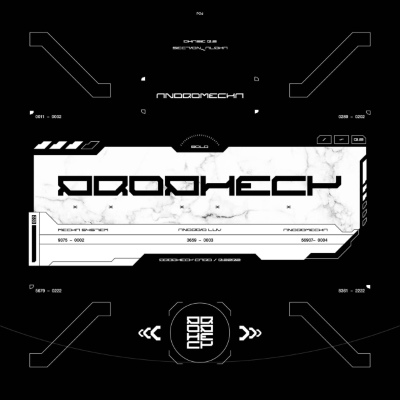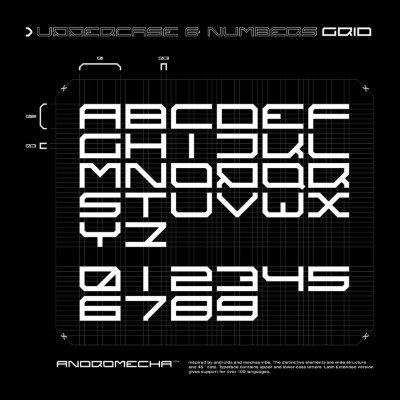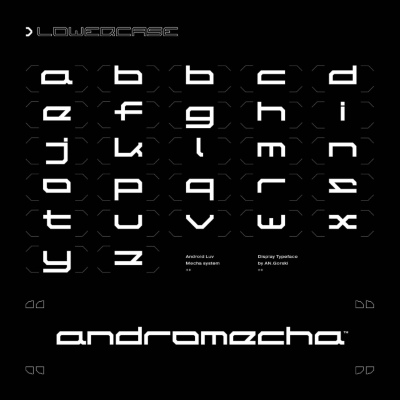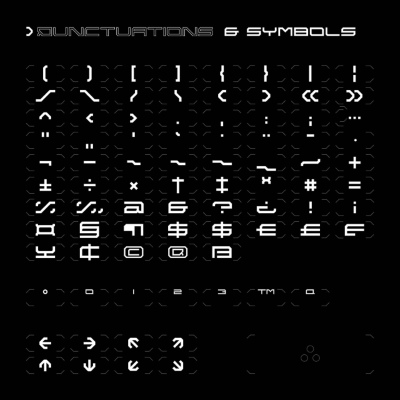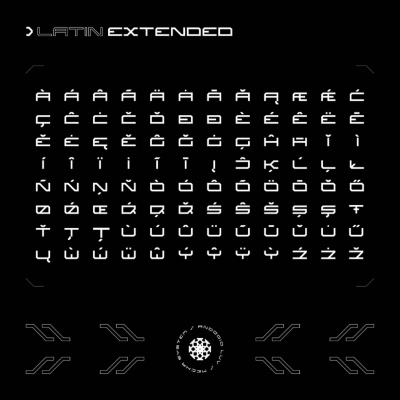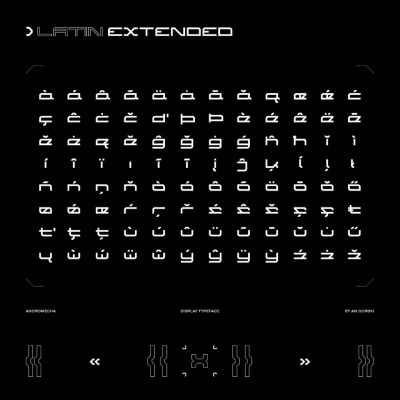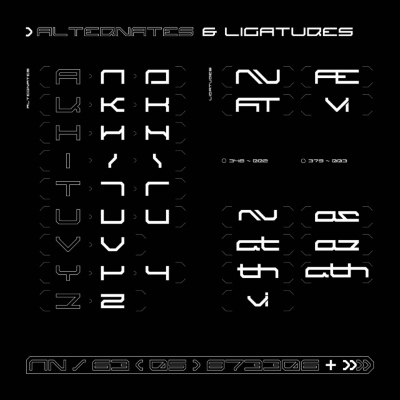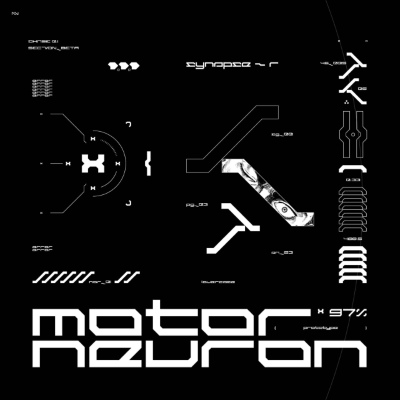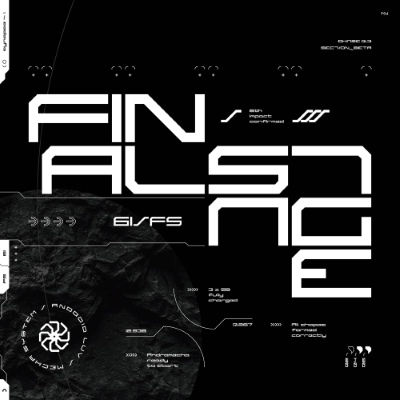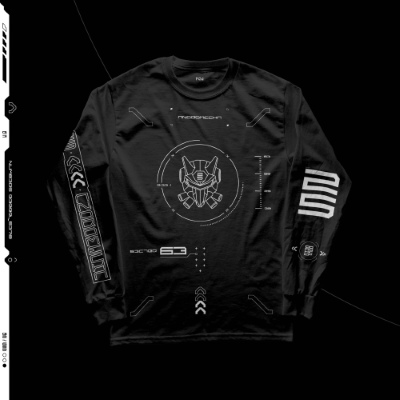
Andromecha - A Futuristic Font by Studio Innate £18
- Andromecha is a versatile display typeface that combines upper and lowercase characters, making it suitable for a wide range of design projects. With support for over 100 languages, it ensures inclusivity and accessibility. Drawing inspiration from androids and mechas, Andromecha captures their futuristic vibe with its wide structure and distinctive 45° cuts. Whether you’re working on logos, headlines, posters, or any creative project, Andromecha adds a touch of modernity and uniqueness to your designs.